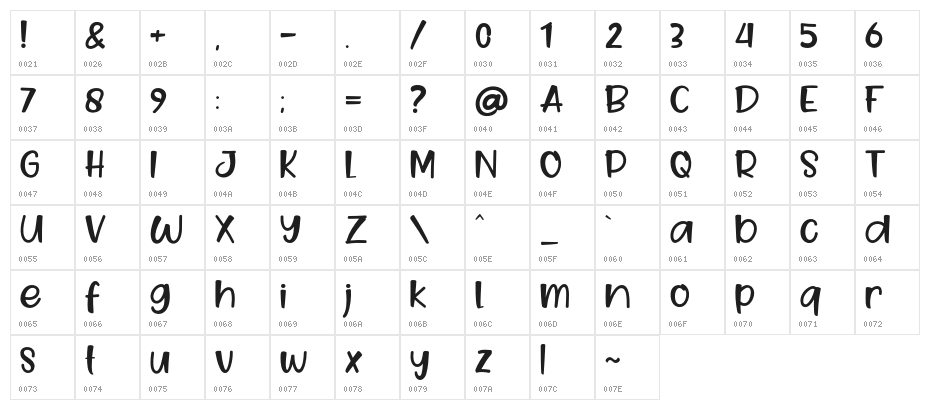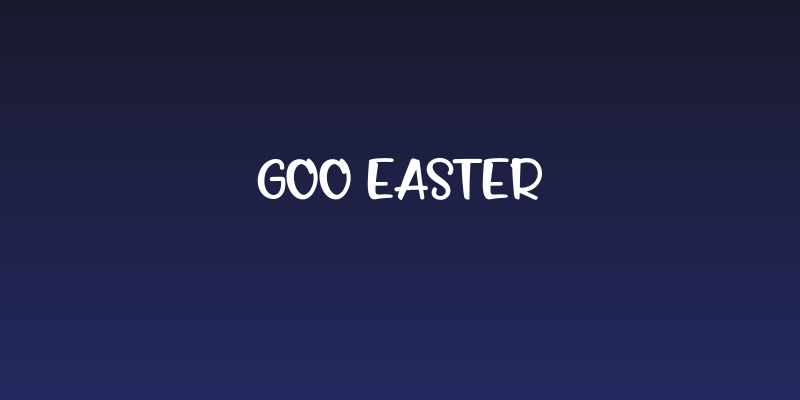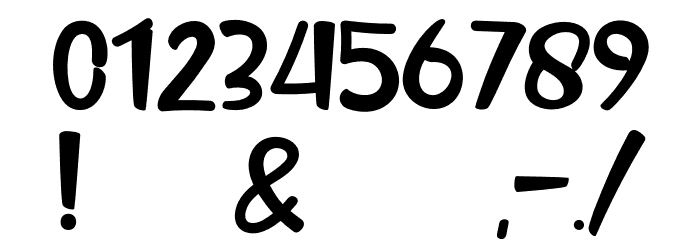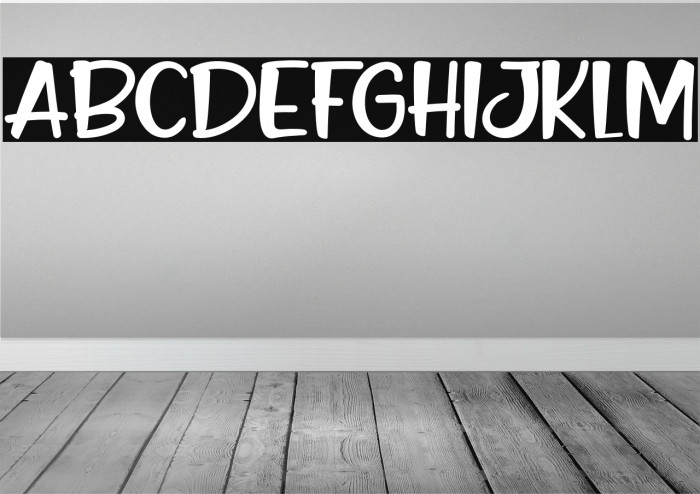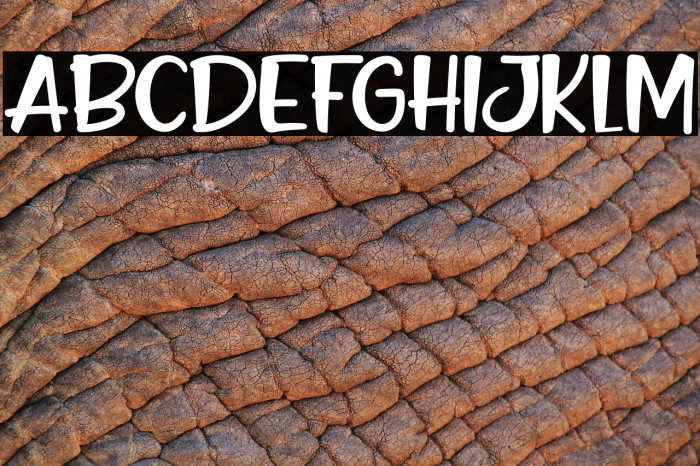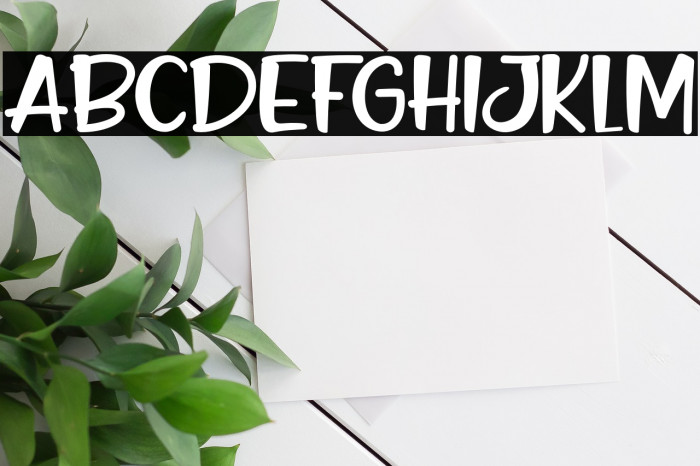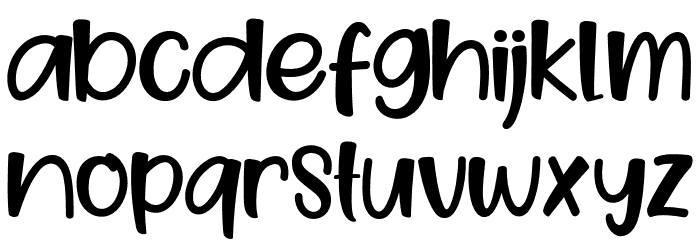
Goo Easter Font
This playful and whimsical font features a handwritten style with bold, rounded characters. The uppercase letters are slightly larger and more pronounced, while the lowercase letters maintain a consistent flow with a casual, friendly appearance. The numbers are clear and legible, matching the overall style of the alphabet. Special characters are included, adding versatility for various design needs. The font's thick strokes and smooth curves give it a lively and approachable feel, making it suitable for creative and informal projects.
| Proposed Projects | Ideal for children's books, greeting cards, playful branding, and social media graphics. |